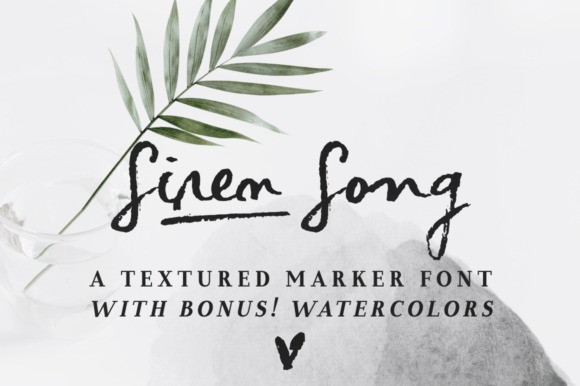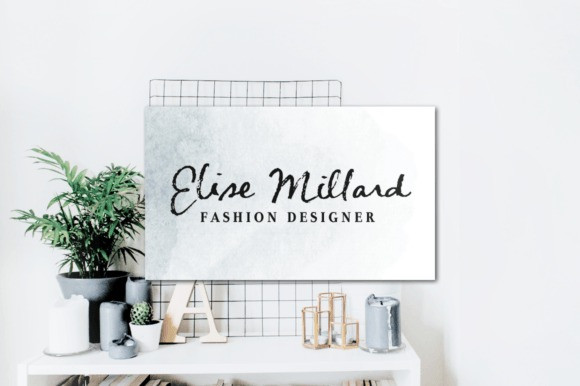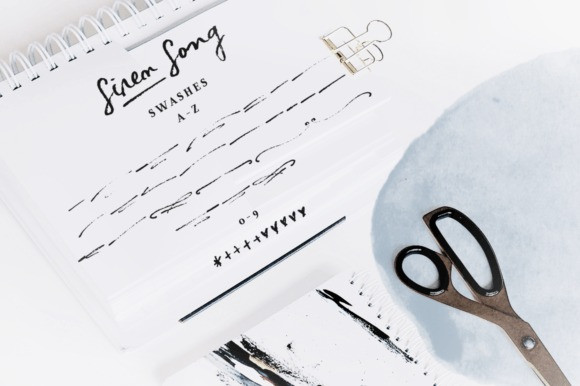
Siren Song Font Family
Siren Song is a cool and modern cool handwritten brush script font. It looks beautiful on a variety of designs requiring a personalized style, such as wedding invitations, thank you cards, greeting cards, logos, and so on.